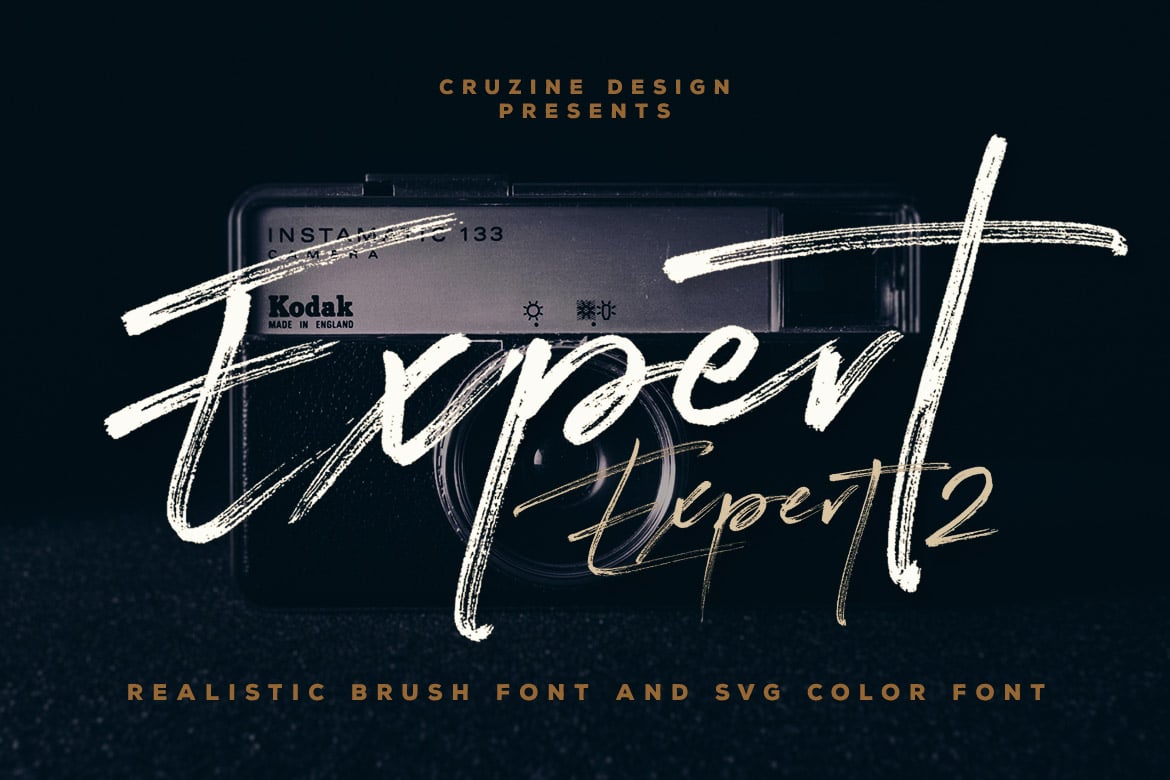
Expert Brush & SVG Font
Expert Brush & SVG Font is perfect for professional art studios, master calligraphy courses, expert design agencies, skilled craftsman branding, artistic workshop signage, professional brush lettering materials, expert creative services, master artist portfolios, specialized art education, and premium creative consultancy communications.
Expert Brush & SVG Font is exciting because it masterfully combines the sophisticated artistry of expert brush lettering with cutting-edge scalable vector graphics technology, creating a typeface that embodies professional mastery, artistic excellence, and the precision that defines true creative expertise. This font brings artistic authority and technical sophistication to any project, making it ideal for professionals who want to convey skill, mastery, and the refined quality that comes from years of dedicated practice. Its expert character and artistic precision create an atmosphere of professional excellence that resonates with audiences who appreciate true artistic mastery.
Expert Brush & SVG Font family includes regular, medium, and bold brush variations, plus SVG color capabilities, master flourishes, and expert decorative elements, providing designers with comprehensive tools for creating professional brush typography and masterfully crafted brand experiences.
This sophisticated artistic typeface combines traditional brush mastery with advanced SVG technology, making Expert Brush & SVG Font Free Download an outstanding choice for projects celebrating artistic expertise and professional craftsmanship. The font's expertly crafted letterforms feature masterful brush strokes and precision styling that reflect the skill and dedication required to achieve true artistic mastery and professional excellence.
Whether you're designing professional art services branding, expert educational materials, or master craftsman communications, Expert Brush & SVG Font delivers unmatched artistic authenticity and professional appeal. The font performs magnificently across both digital applications where SVG scalability ensures perfect reproduction and traditional media where brush texture creates authentic artistic experiences.
Creative professionals choose Expert Brush & SVG Font for its ability to instantly communicate artistic mastery and professional expertise while offering the technical versatility needed for modern multimedia applications. The font's expert character makes it particularly effective for art schools, design agencies, and professional creative services.
Each character reflects the confident strokes of master artists, featuring expert construction and professional proportions that create typography as skilled and refined as master paintings, expert calligraphy, and the finest expressions of artistic mastery.